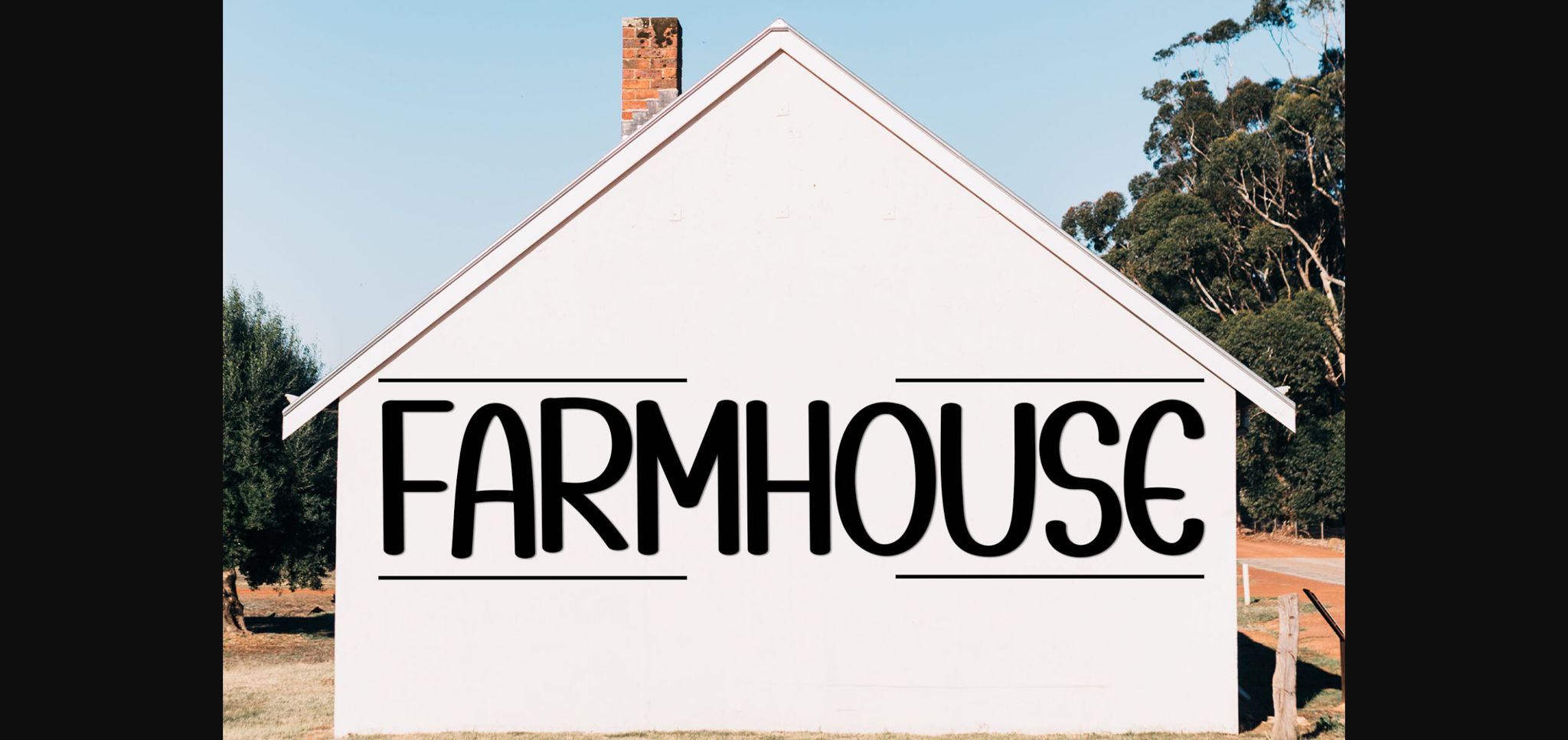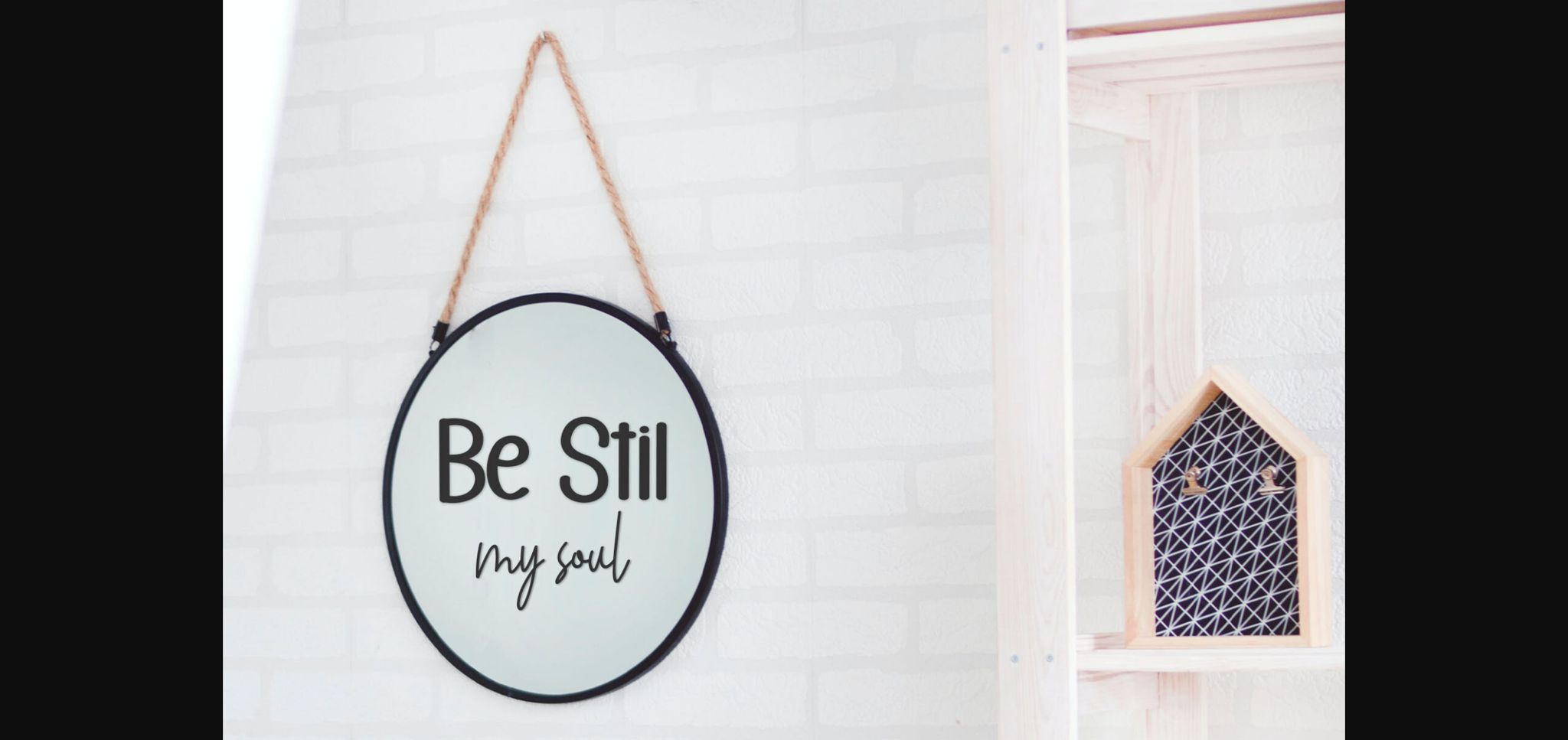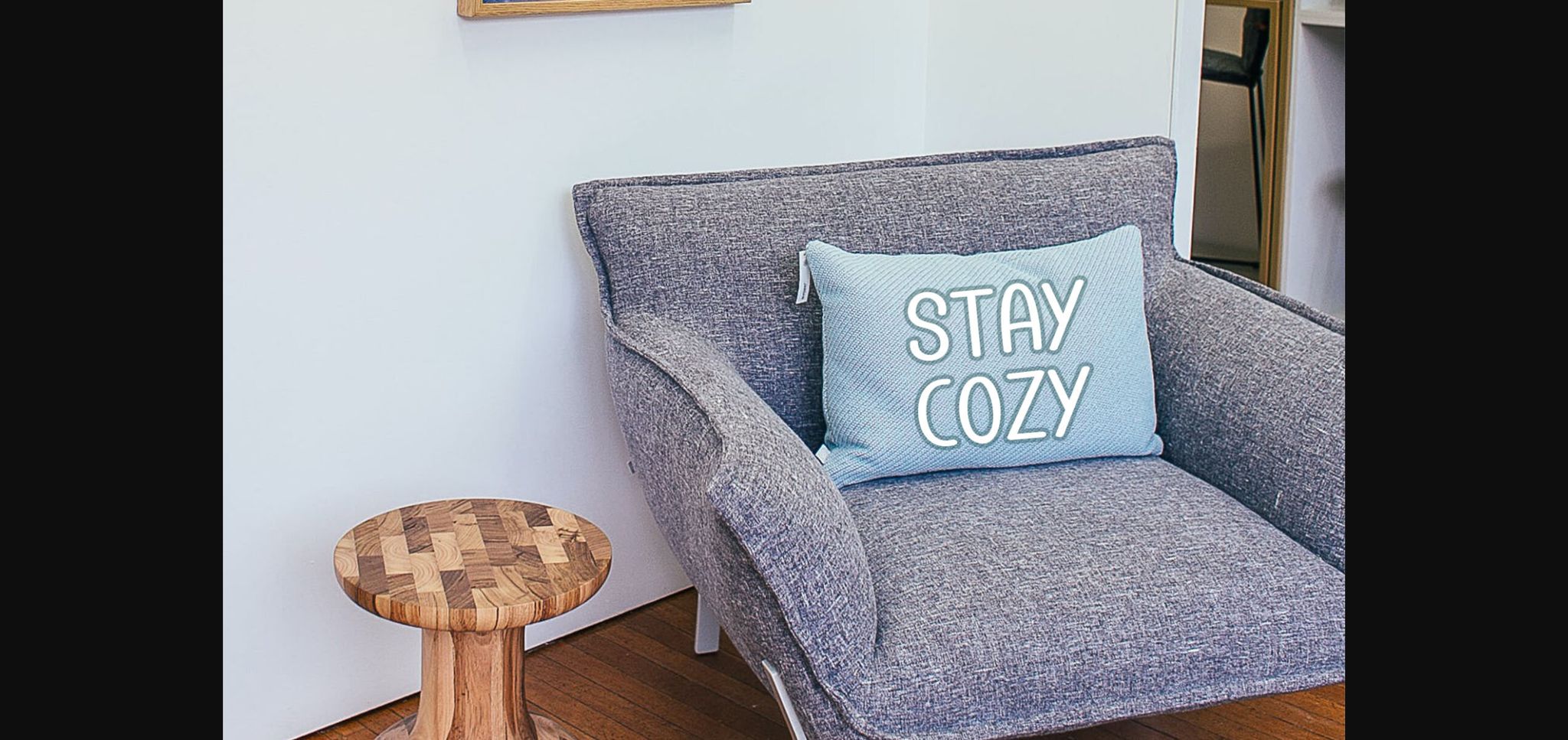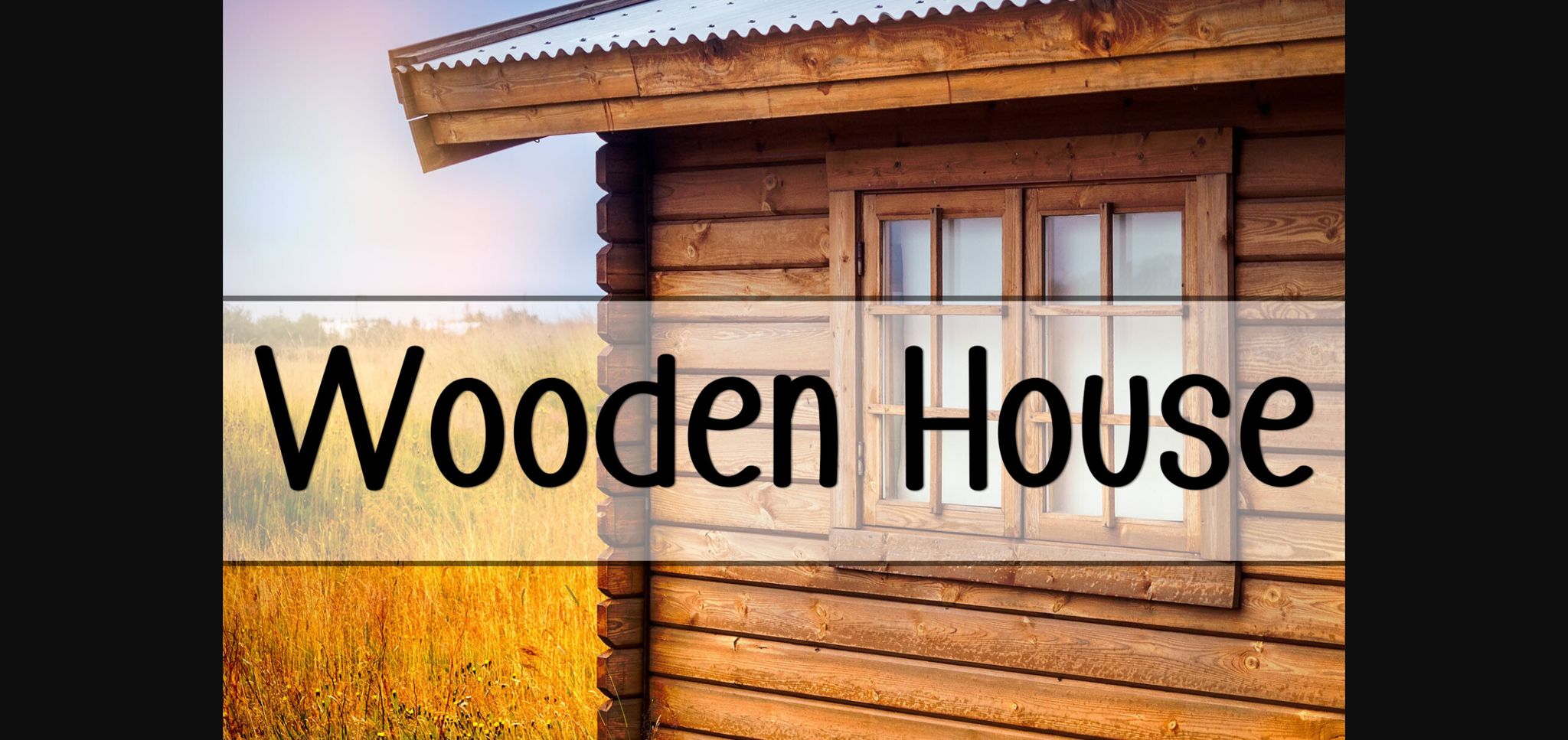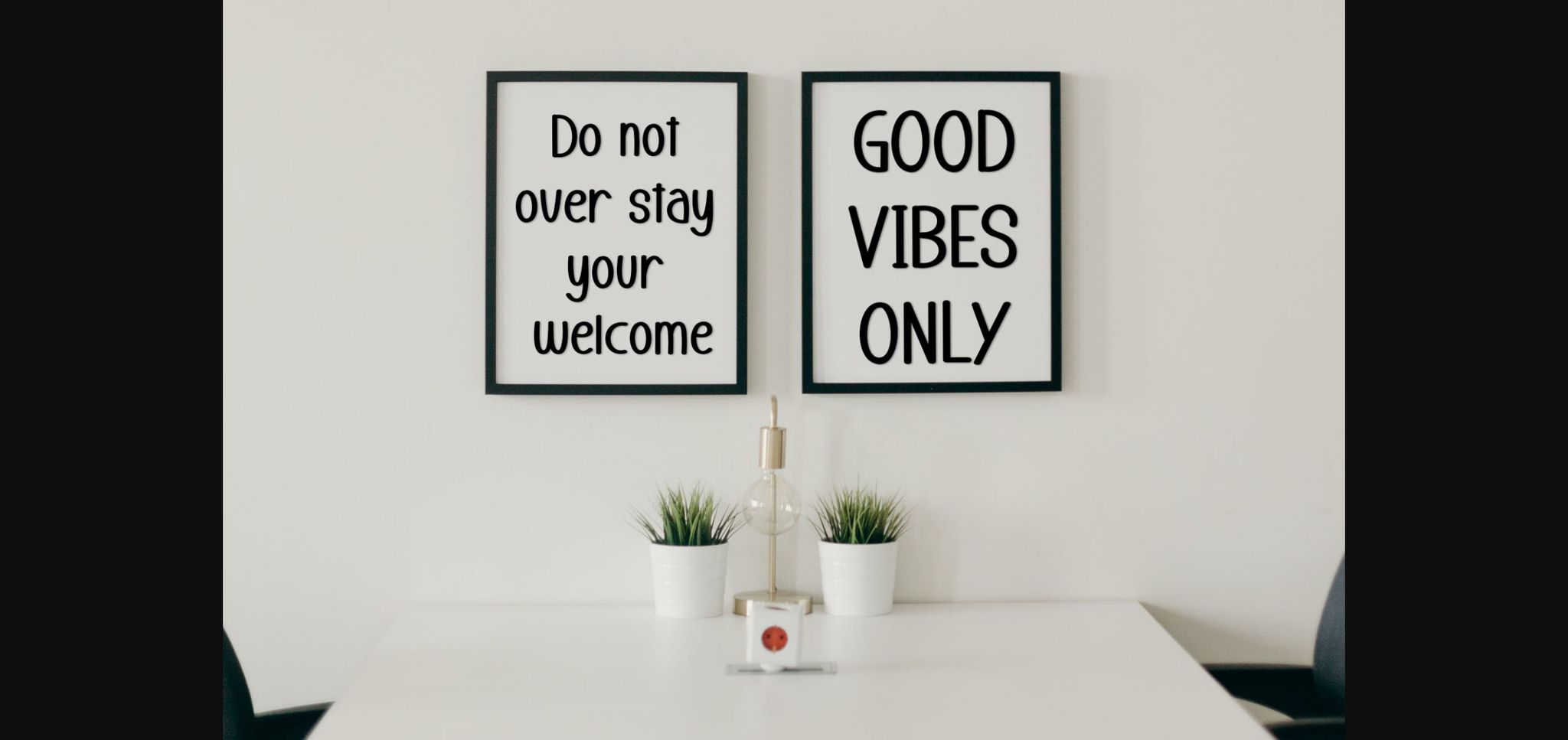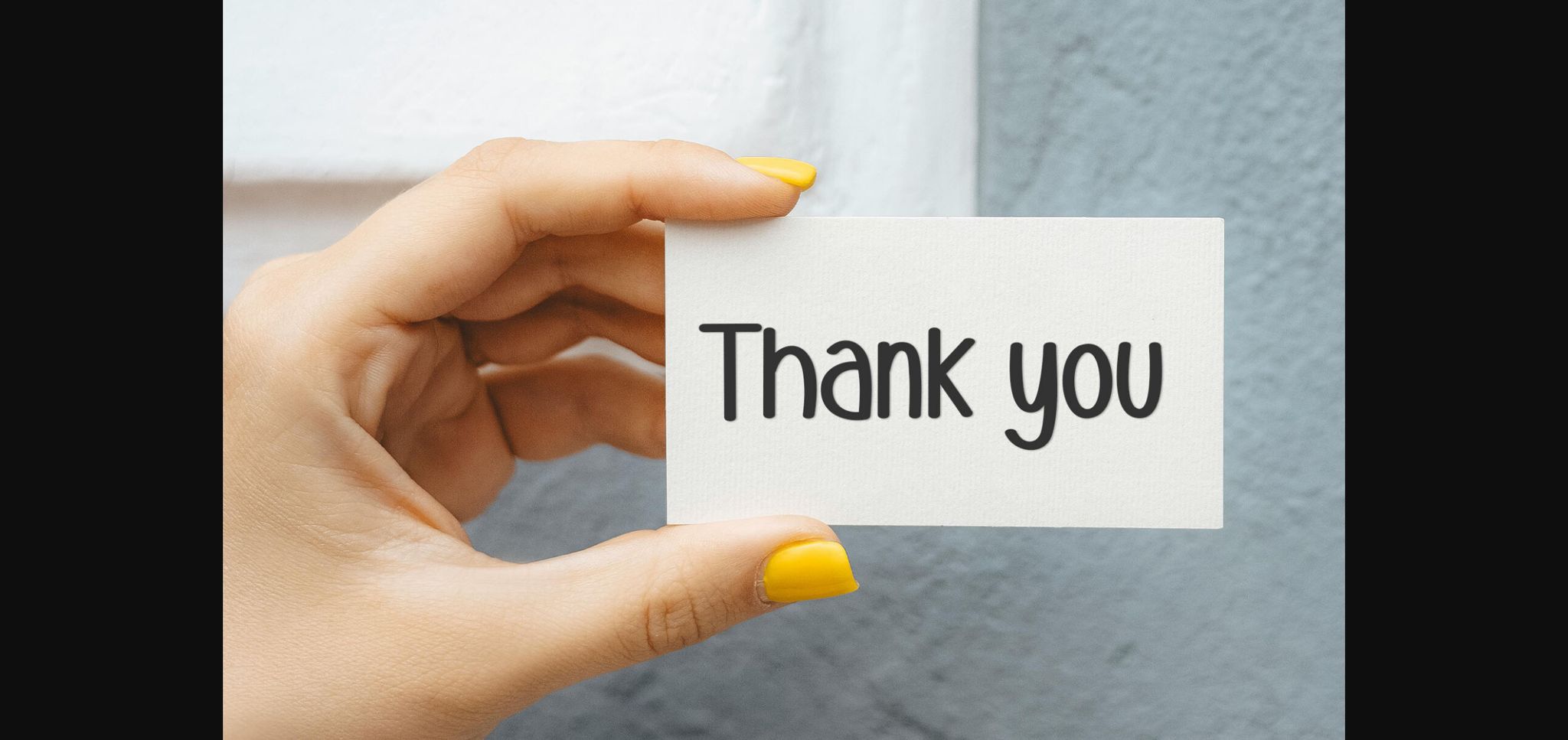
Farmhouse Font
About Farmhouse Font
Farmhouse is a simple sans-serif font designed for a clean retro look. With its vintage balanced proportions, this font is perfect for creating a minimalist aesthetic in Tattoos, logos, web design, and branding.